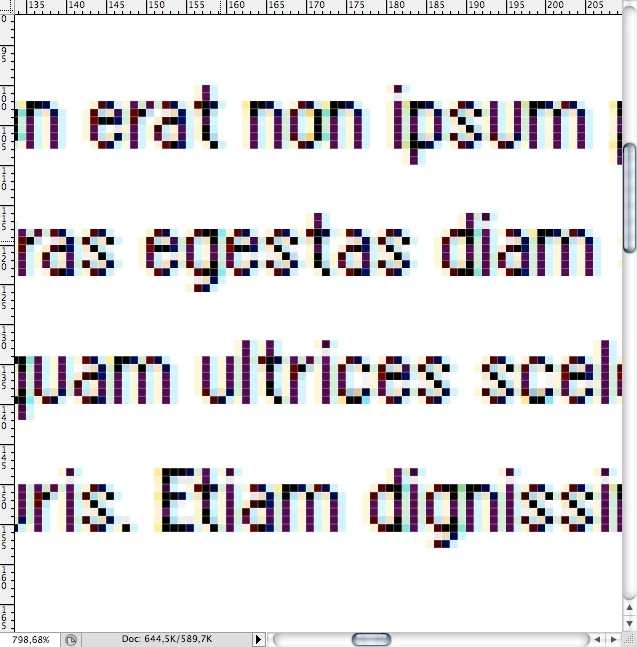
How to turn off aliasing with pixel fonts
I embedd pixel font and I can see that some aliasing is upplied to it. I would rather see my paragraphs of pixelfonts wihout it. Sometimes it looks OK but sometimes makes whole text little blurry and "colorful". jpg example attached
Is there some magic trick to turn it off?
Are you using the font with TLF? If so, I'd suggest setting the format of the text to "format.renderingMode = RenderingMode.NORMAL. If you are using it with TextField (e.g. via TextArea) that has a different way to turn the anti-alising off, see TextField.antiAliasType.